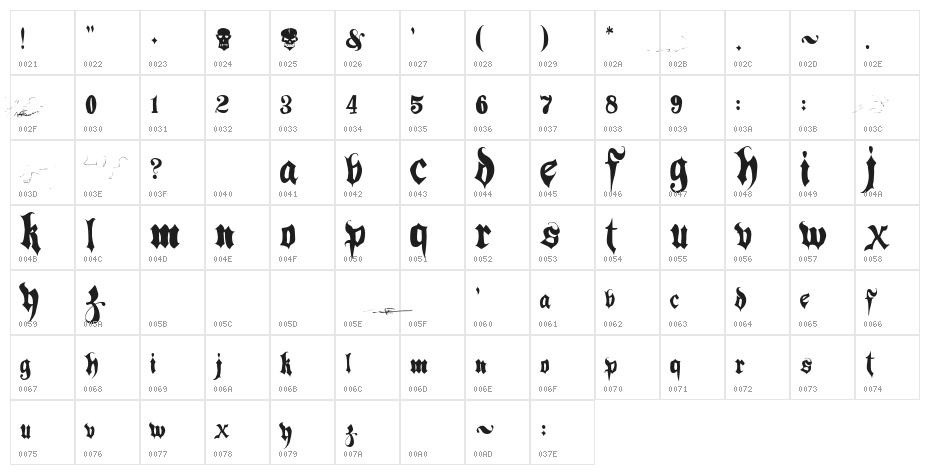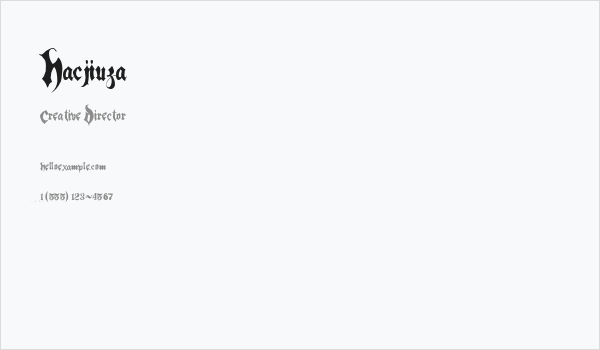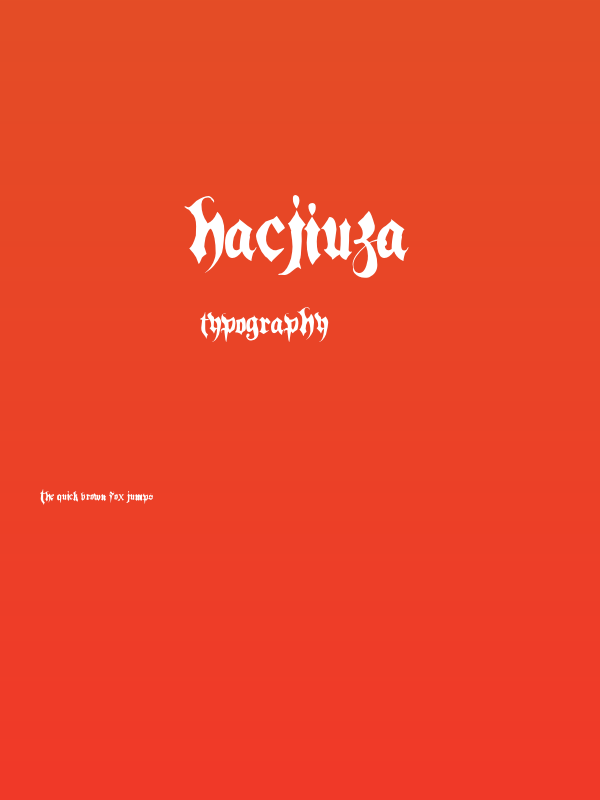
Hacjiuza Font
Hacjiuza Description
This font exhibits a bold and dramatic style, characterized by its sharp, pointed edges and intricate detailing. The letters are reminiscent of traditional blackletter scripts, often used in historical and gothic contexts. The uppercase and lowercase letters maintain a consistent style, with a strong emphasis on vertical strokes and decorative flourishes. Numbers and special characters are equally ornate, adding to the overall cohesive aesthetic. This font's unique and striking appearance makes it suitable for projects that require a touch of elegance and historical flair.
| Overall Style | Gothic, Historical |
| Proposed Projects | Ideal for use in branding, posters, book covers, and any design requiring a gothic or historical theme. |